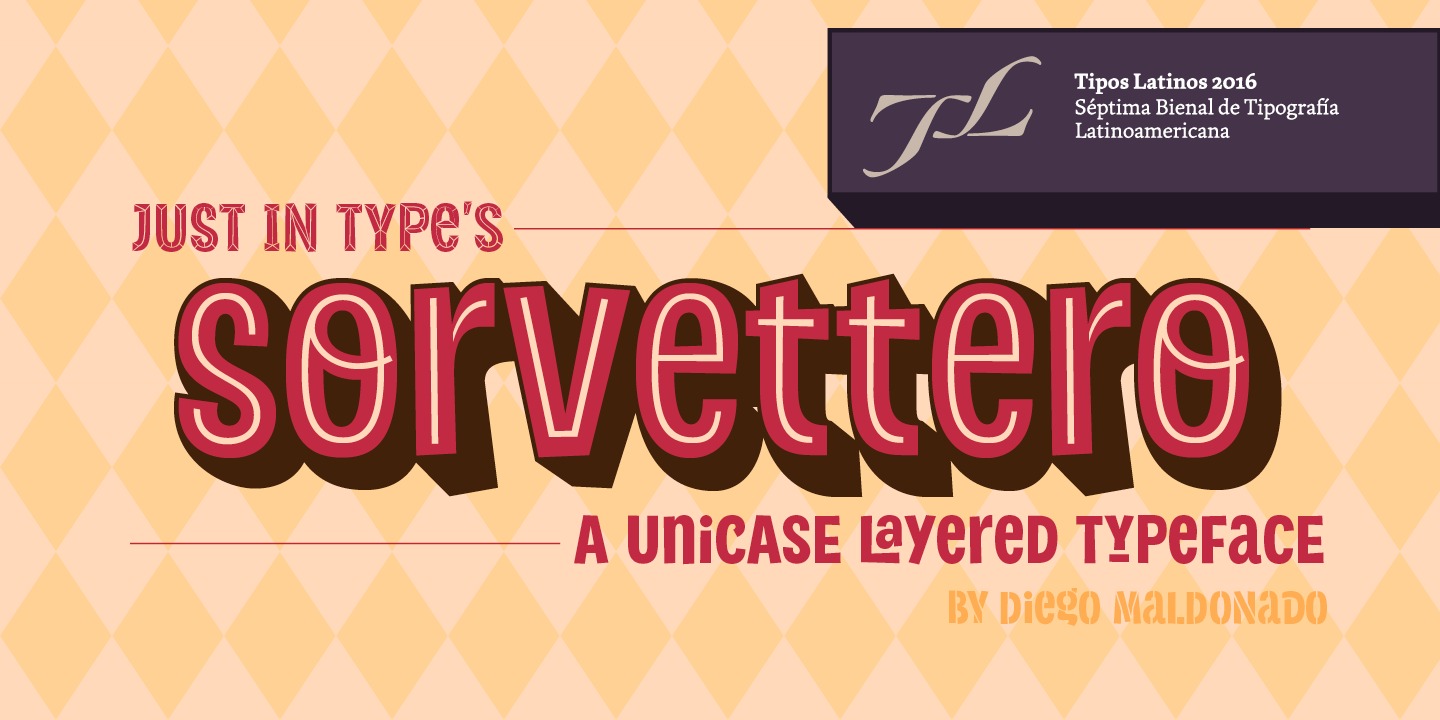
Sorvettero Font Family
Sorvettero Font Family is a versatile font designed to adapt beautifully across different design styles, offering dependable readability and balance. Sorvettero is a sans, layered and unicase typeface inspired by some wood signs at Descansópolis, a neighborhood on Campos do Jordão, a city of Brazil. A fun and cute display project with different use purposes, like packaging, logos, signs, and whatever your creativity brings on. Designed by Diego Maldonado, with contribution of Tony de Marco on the Diamond style.
Designer: Tony de Marco, Diego Maldonado